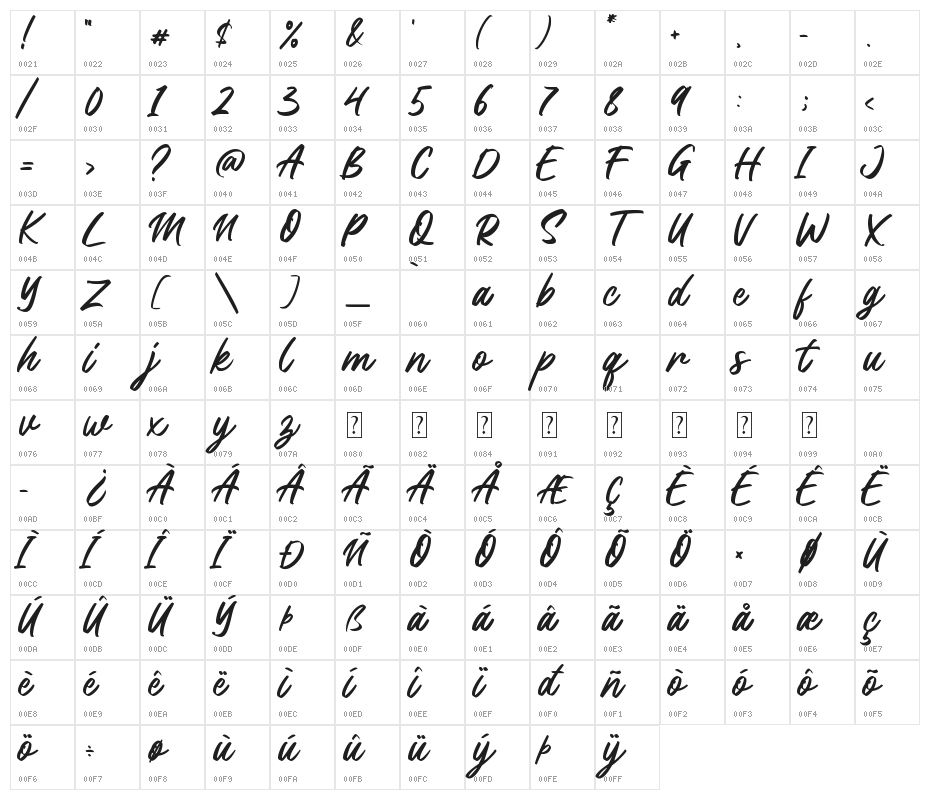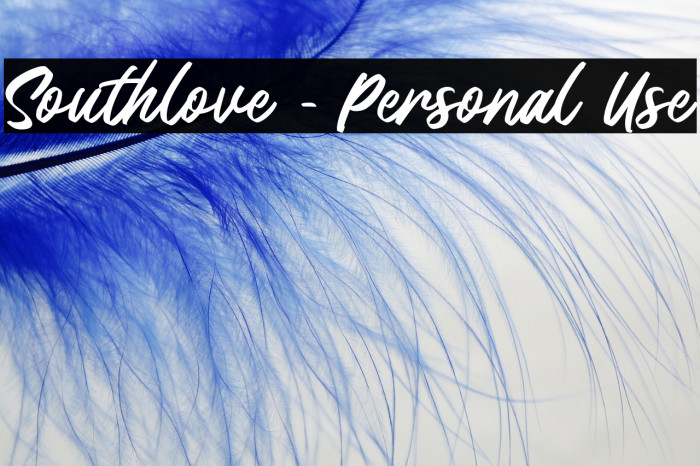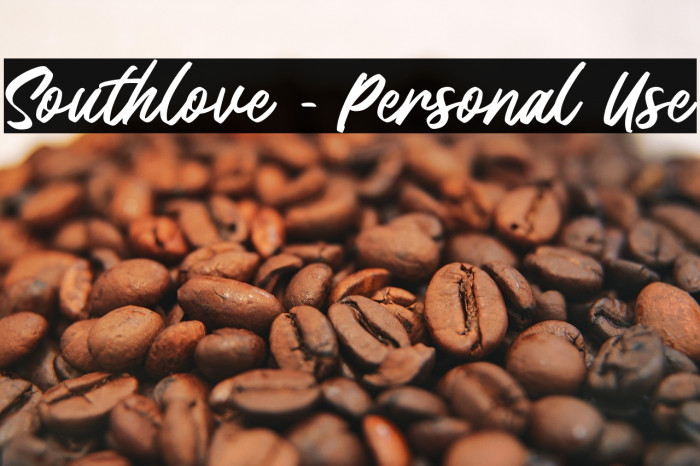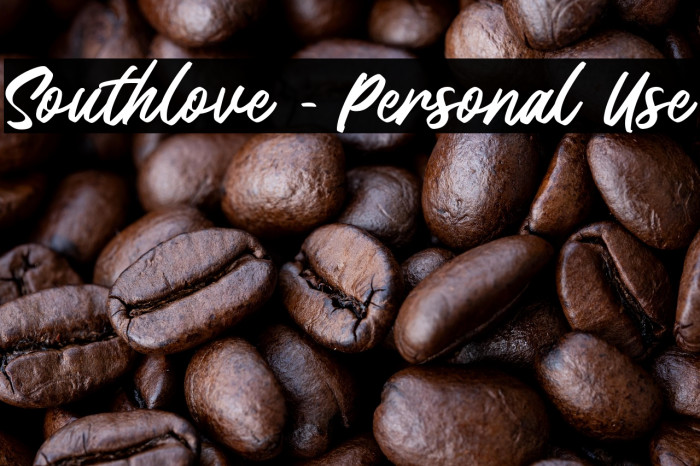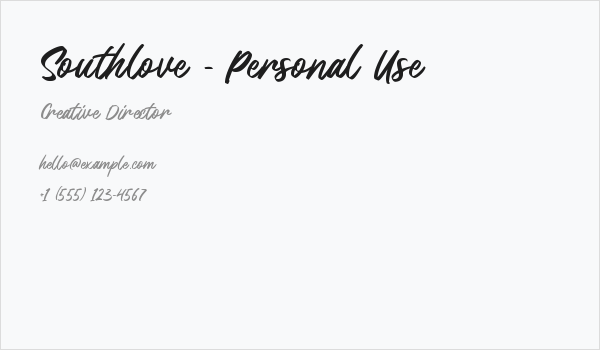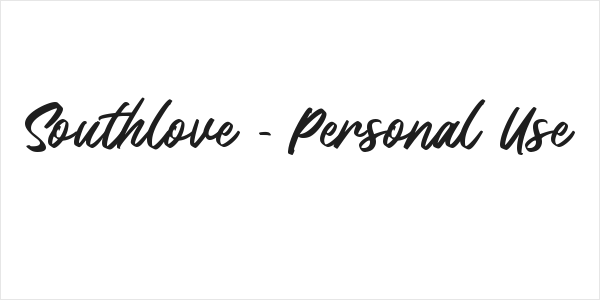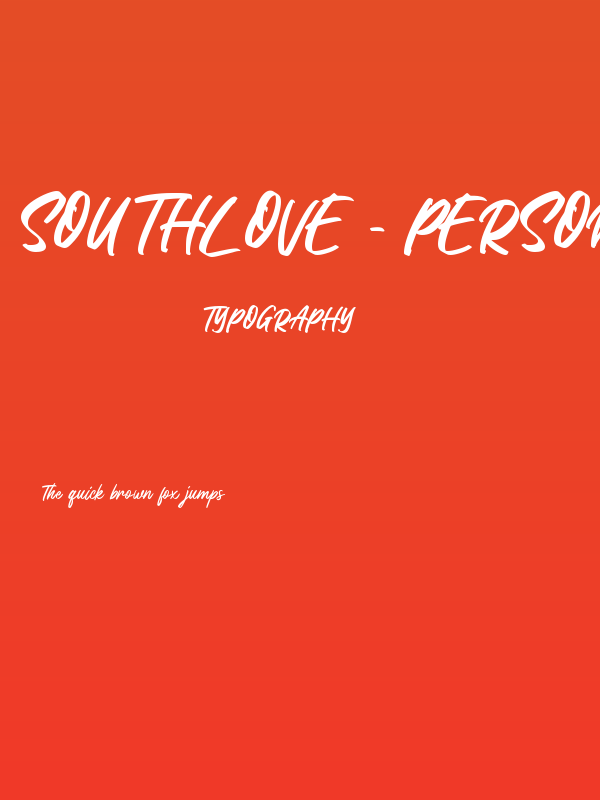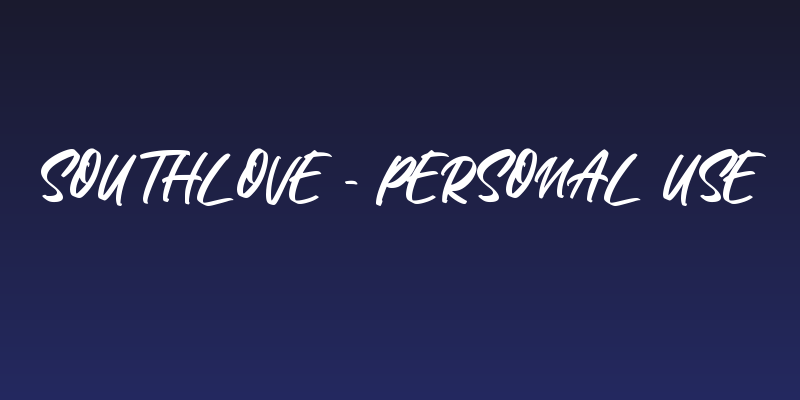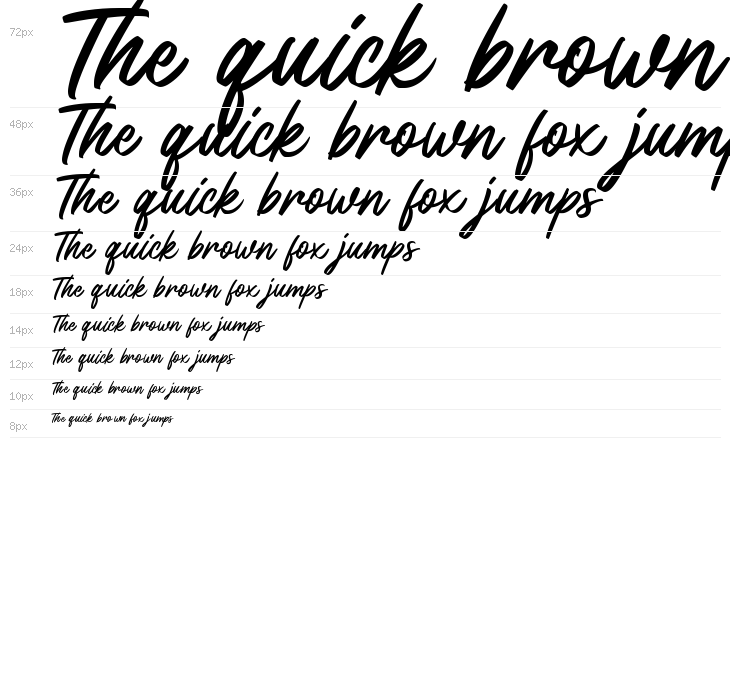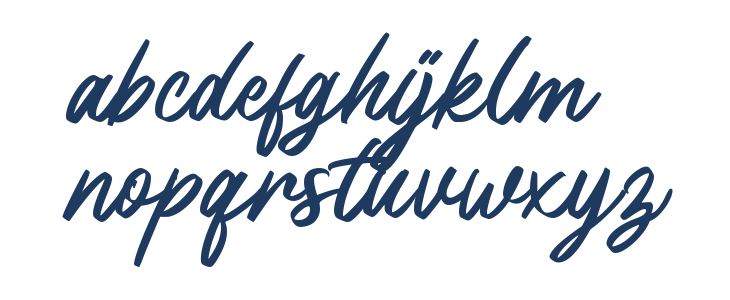
Southlove - Personal Use Font
Southlove - Personal Use Description
This font features a dynamic and expressive script style, characterized by its fluid and connected letterforms. The strokes are bold and confident, with a slight slant that adds to its energetic appearance. Each character flows seamlessly into the next, creating a sense of movement and rhythm. The uppercase letters are slightly larger and more pronounced, while the lowercase letters maintain a consistent flow. The numerals and special characters are crafted with the same attention to detail, ensuring a cohesive look throughout. This font exudes a sense of creativity and spontaneity, making it ideal for projects that require a personal touch.